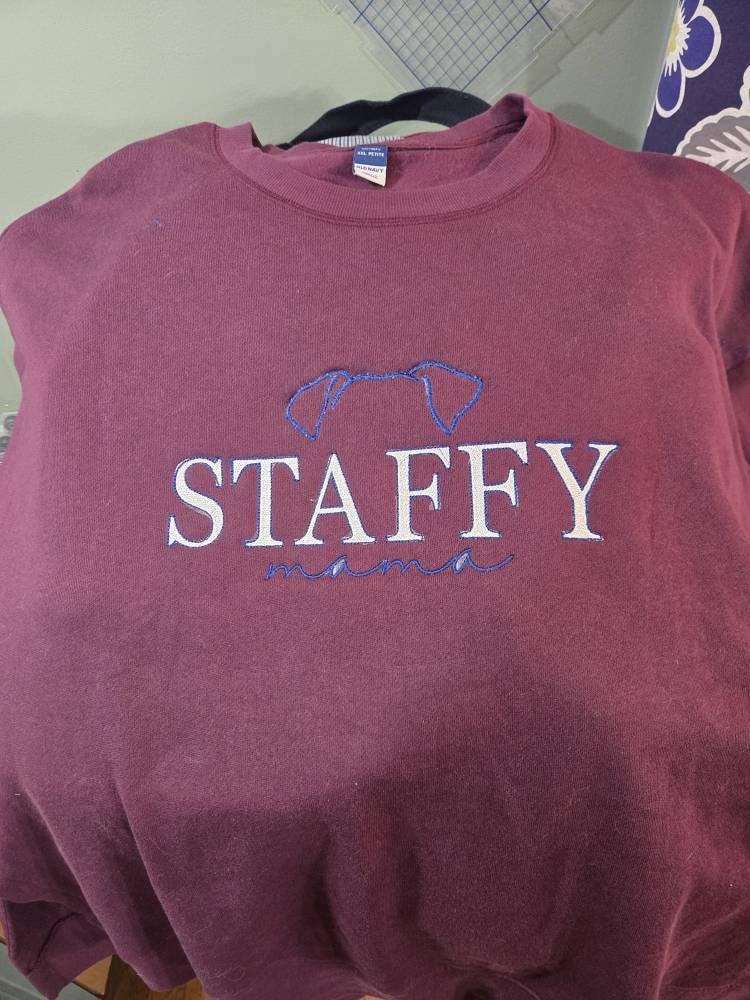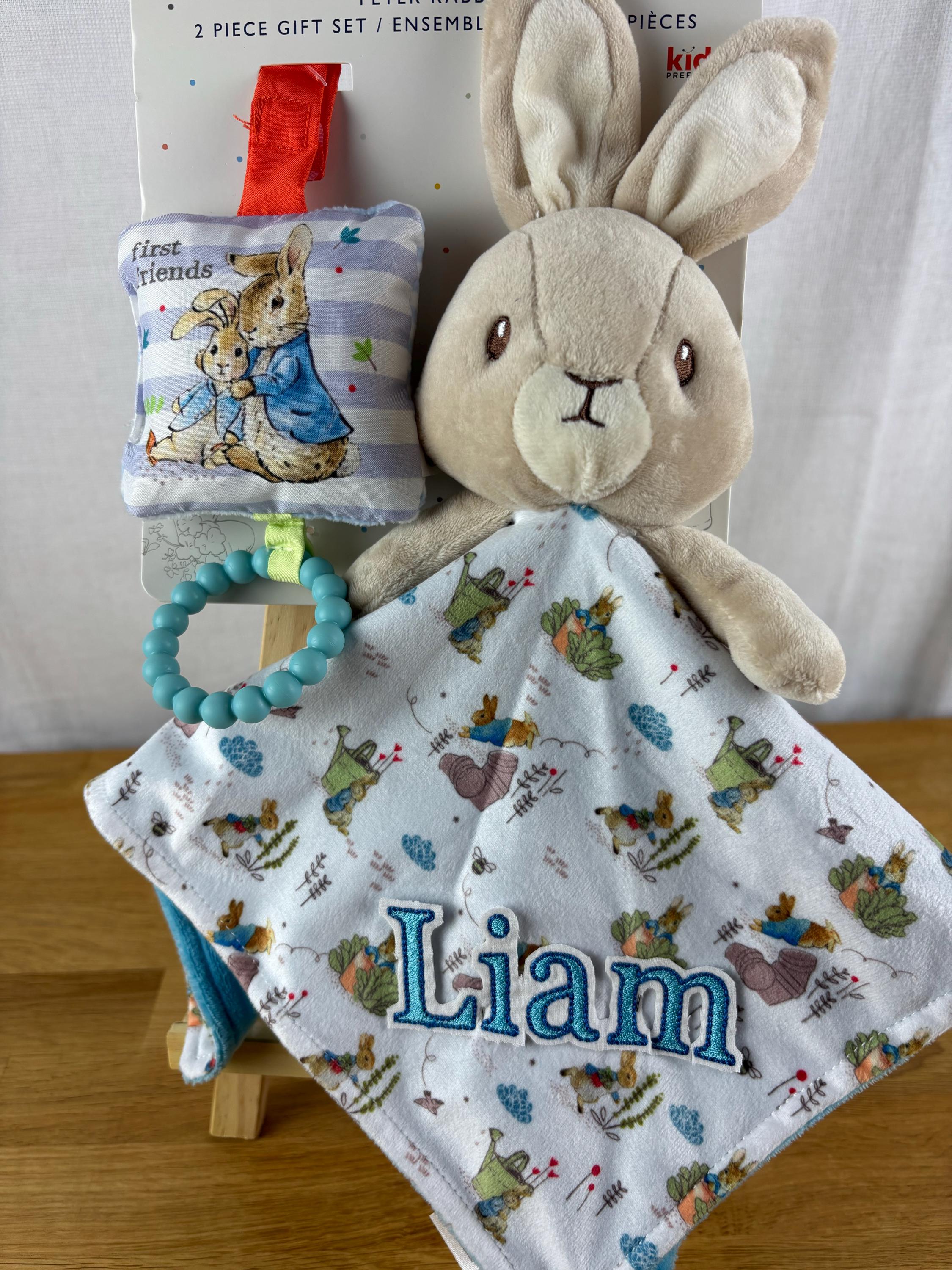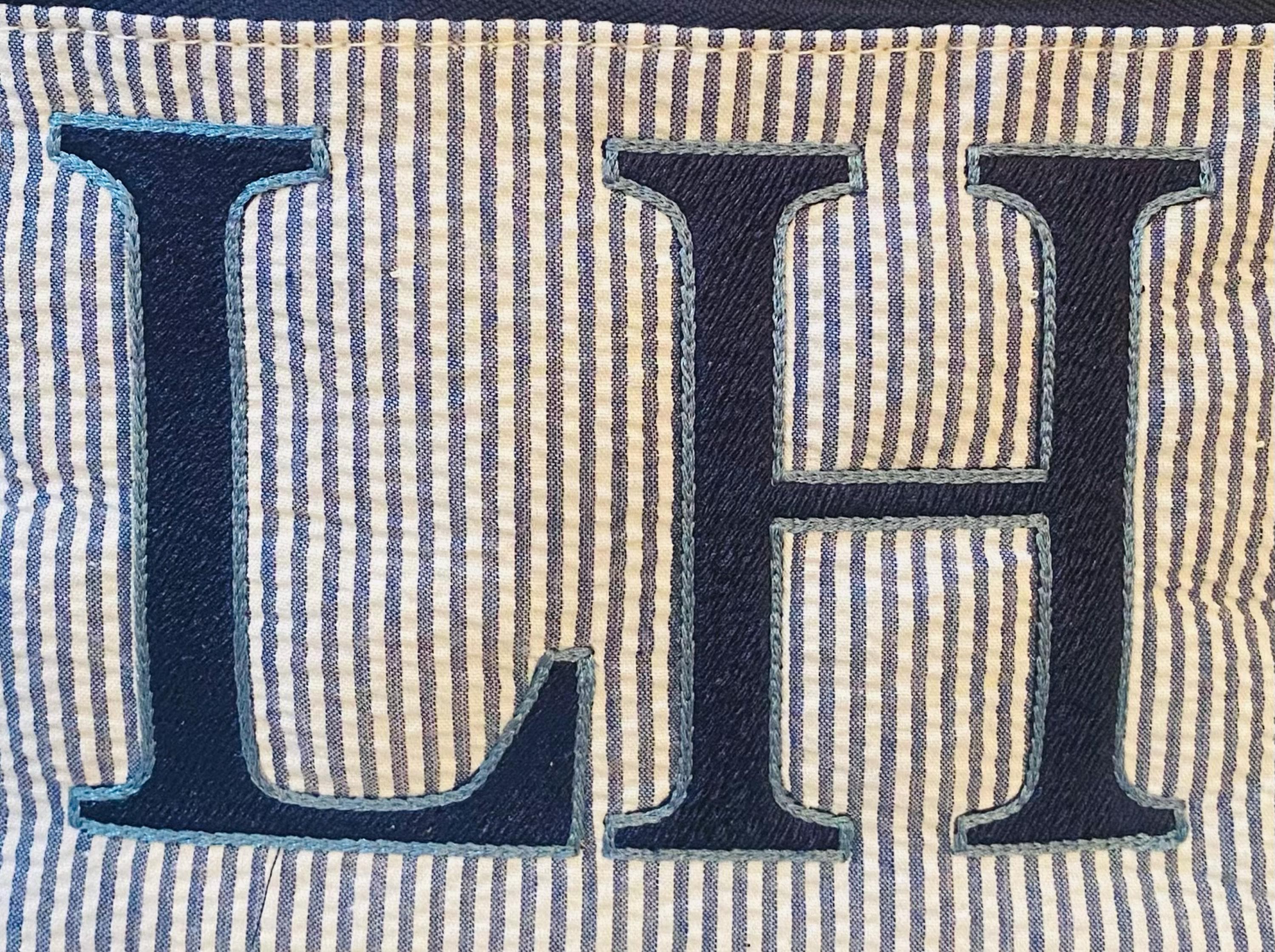
Block Font Fill Stitch and Bean Outline
Add bold, classic lettering to garments and gifts.
Block Font Bean Stitch alphabet brings bold, modern block lettering to your machine embroidery projects. This fill stitch alphabet with bean outline works as a block font embroidery and a bean stitch font ideal for monogram letters and sports-style names. Files include uppercase, lowercase, numbers and punctuation in PES, DST, EXP, VIP, HUS, XXX, JEF and VP3 formats. Sizes range from 1.3in to 3.4in and stitch count is 6388 with 2 colors per character, giving clean fills and a crisp bean outline that stitches reliably on sweatshirts, towels and bags.
- Stitch order: the design uses a fill stitch for the block interior and a bean outline for a defined edge—run the fill before the bean outline for best results.
The design combines a fill stitch interior with a bean outline: the fill creates solid block coverage while the bean stitch defines a smooth edge. Each character registers about 6388 stitches and uses 2 colors for a clear, raised outline.
This font is beginner-friendly: only 2 colors and a moderate stitch count (6388) per character make it straightforward to stitch, while the bean outline helps produce a clean finished edge.